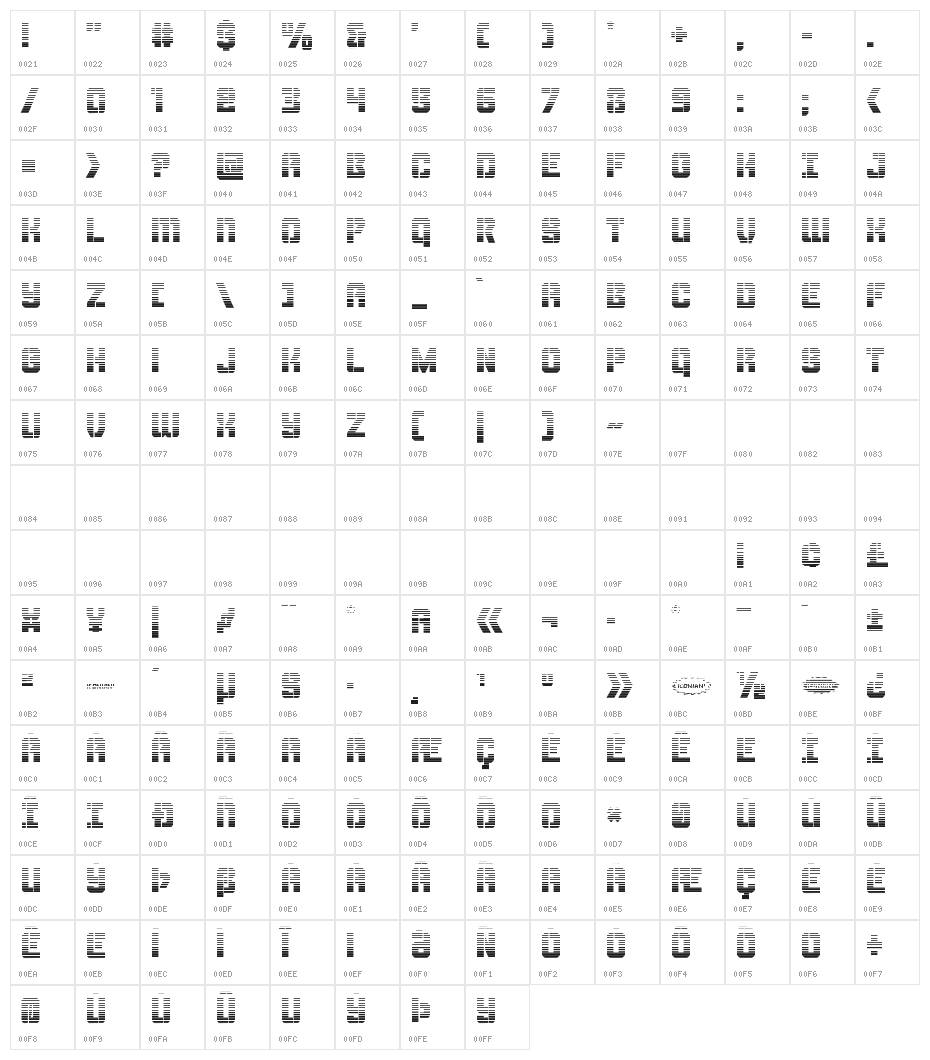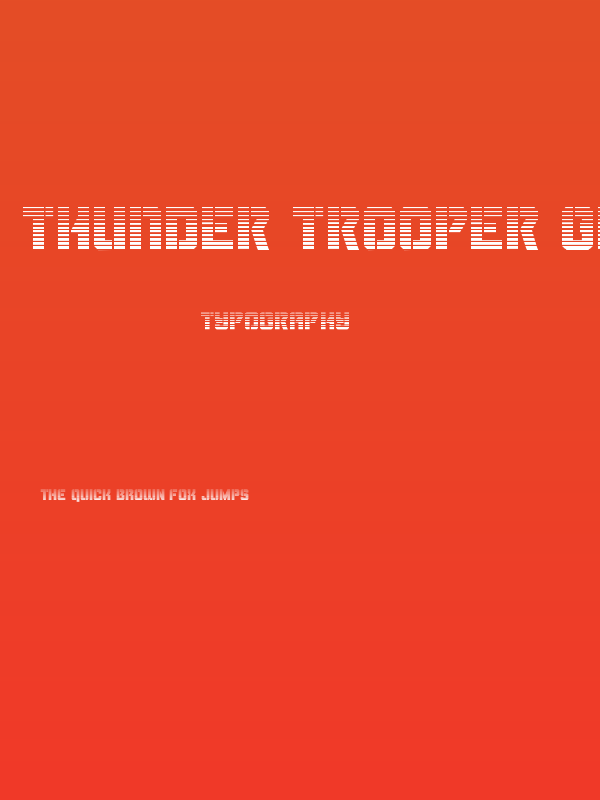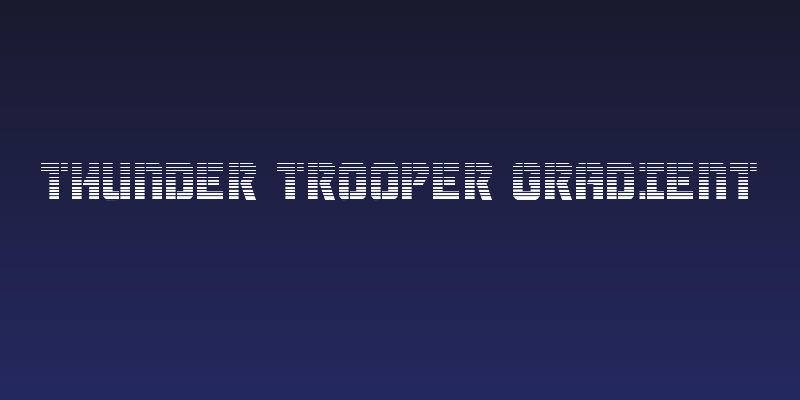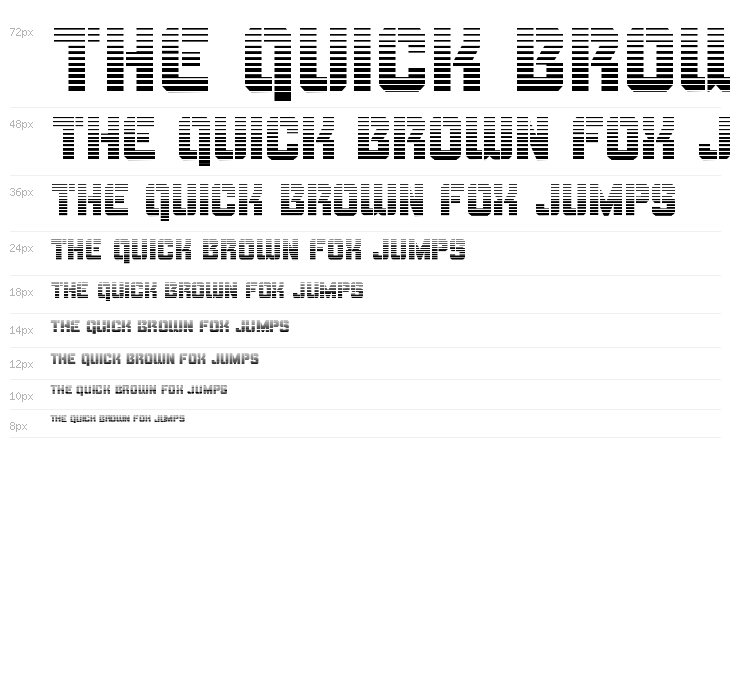
Thunder Trooper Gradient Font
Thunder Trooper Gradient Description
This font features a bold, futuristic design with a distinct gradient effect created by horizontal lines. Each character is composed of solid, blocky shapes that are intersected by evenly spaced lines, giving it a dynamic and high-tech appearance. The uppercase and lowercase letters maintain a consistent style, with the same linear pattern applied throughout. Numbers and special characters are also designed with this unique striped effect, ensuring a cohesive look across all glyphs. The font's geometric structure and modern aesthetic make it stand out, ideal for projects that require a strong visual impact.
| Proposed Projects | Ideal for sci-fi themed designs, video game titles, tech branding, and futuristic posters. |